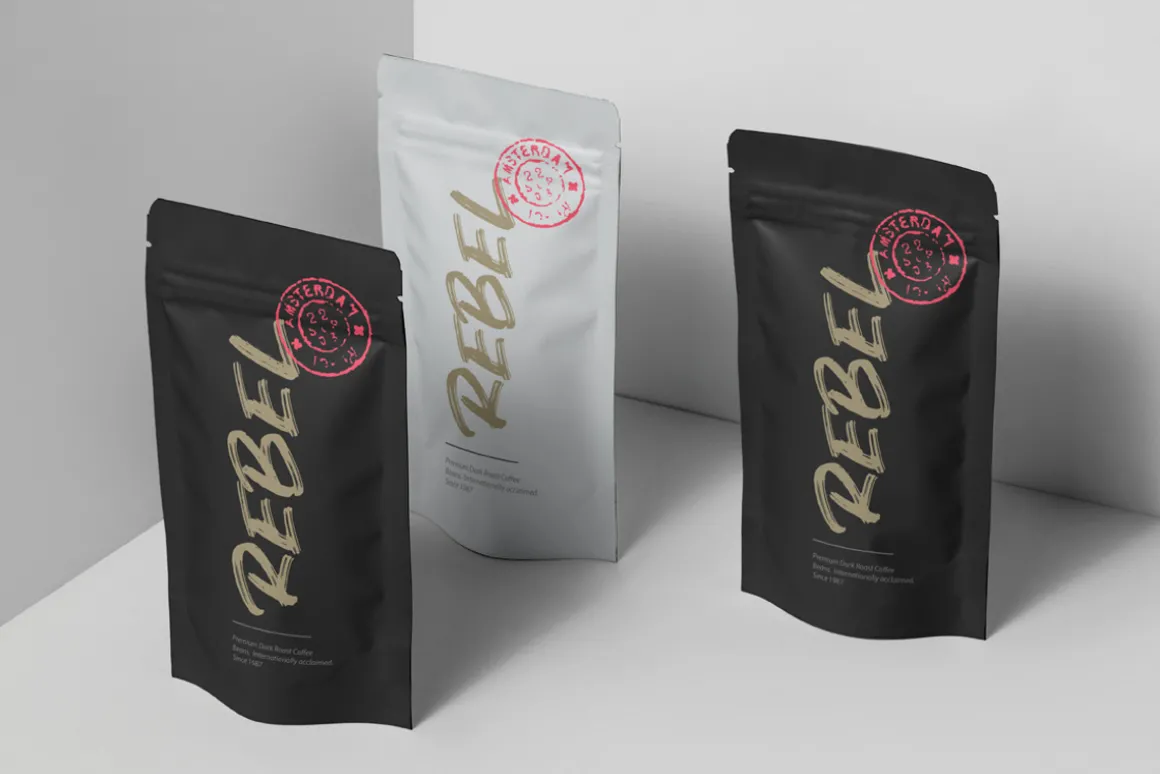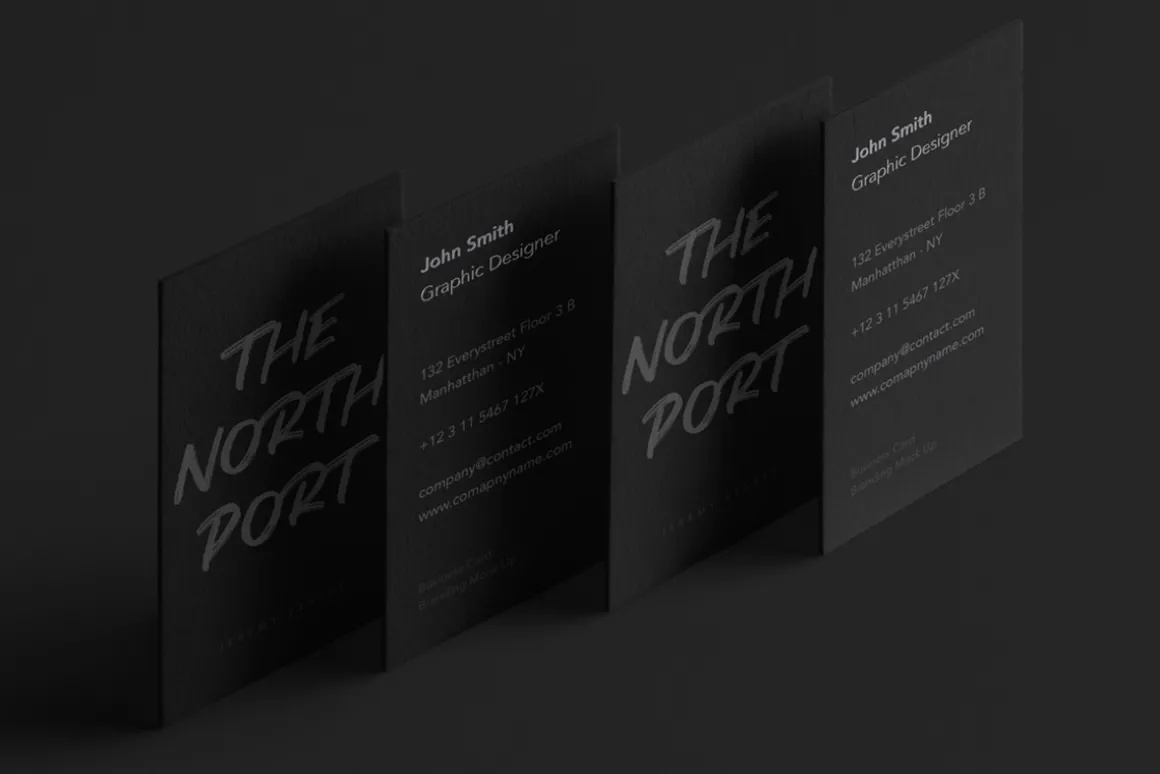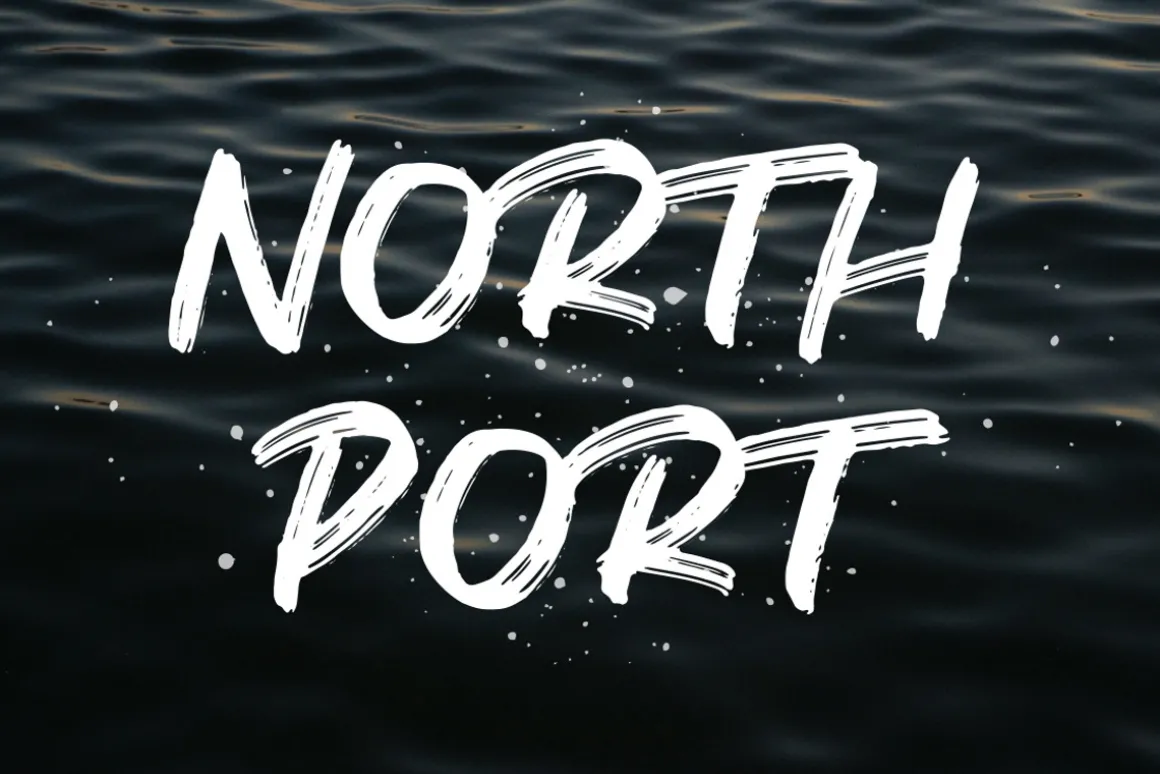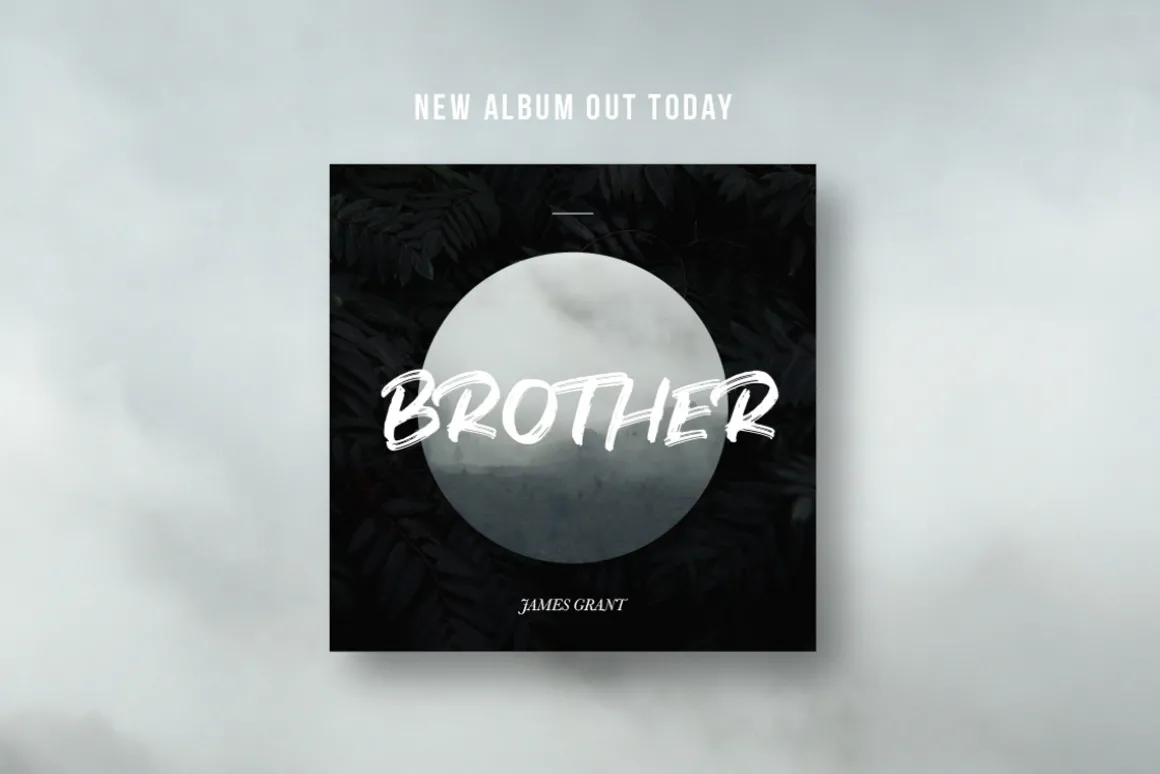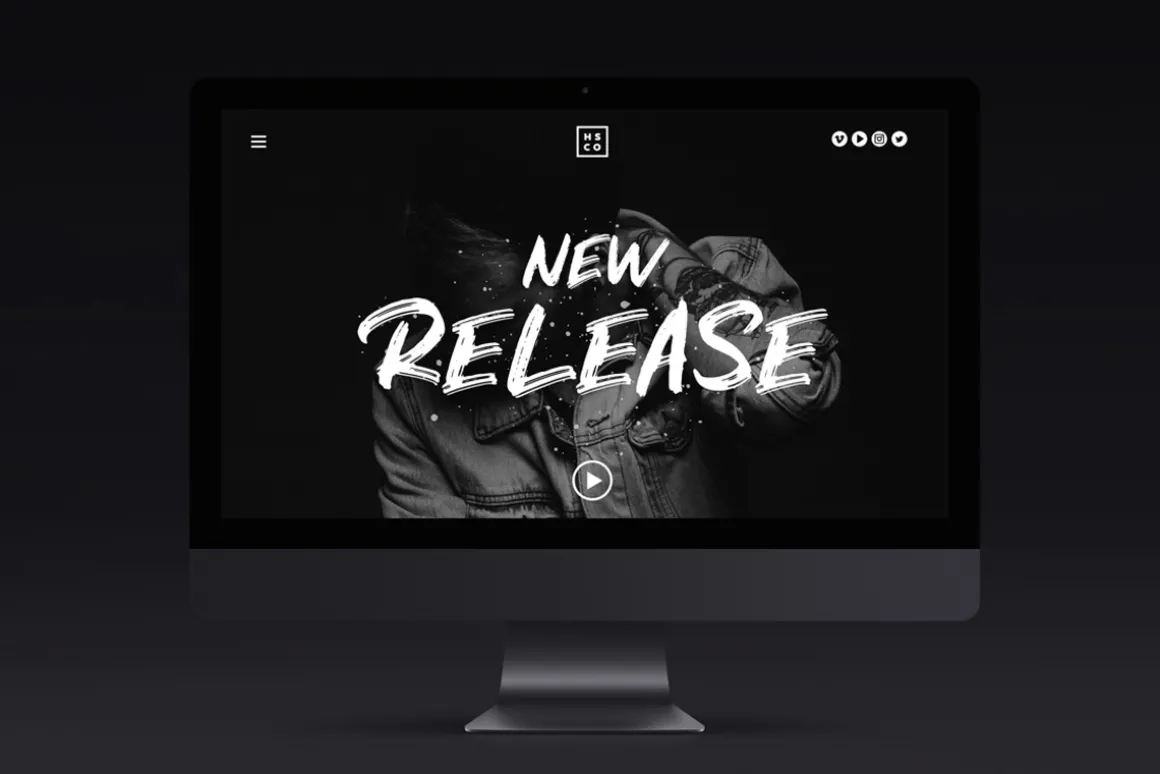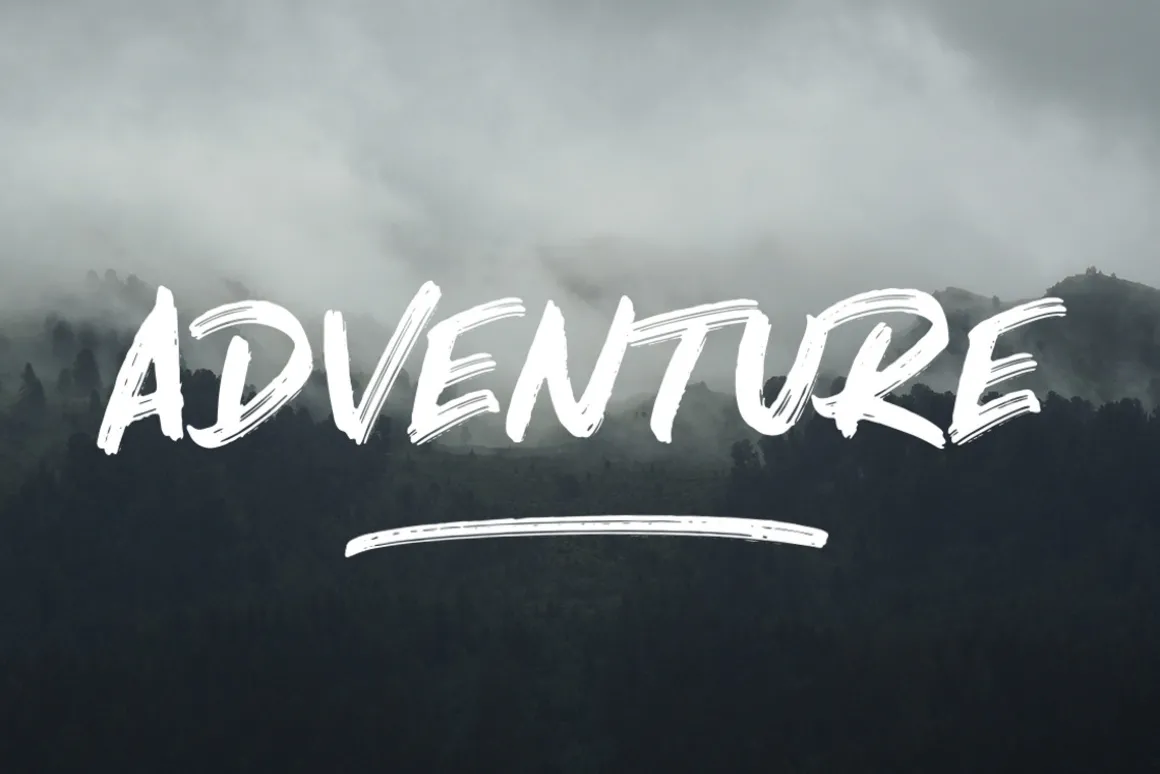
North Port
North Port is a hand drawn all caps brush typeface.It includes 2 versions with 4 sets of capitals in total – giving you a lot of possibilities with 4 possible options for each letter.Files come in OTF format and include western characters!
North Port is great for:
- Logo Design
- Video Titles
- Postcards
- Invitations
- Packaging
- Labels
- Posters
- Headers